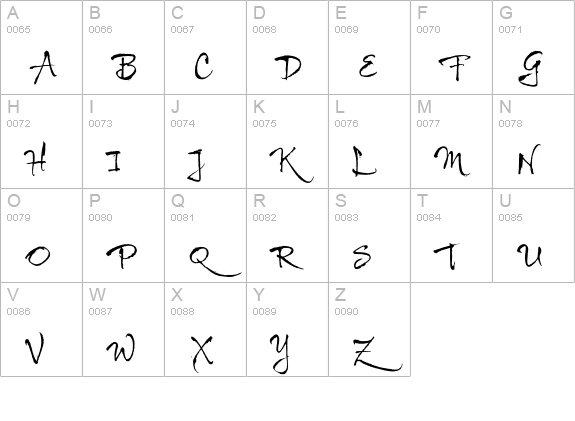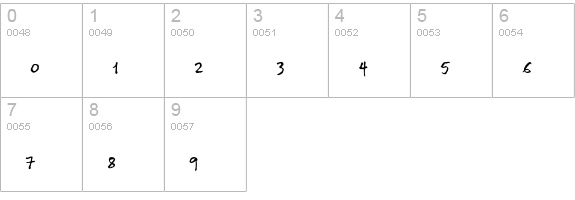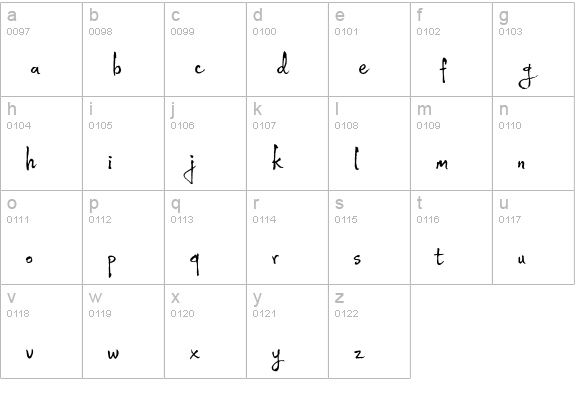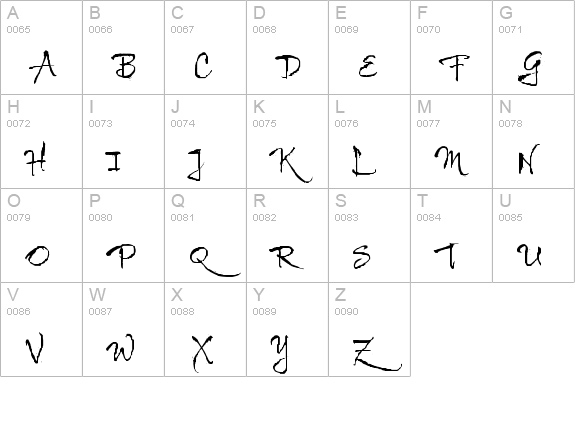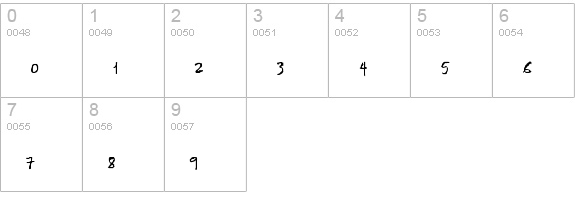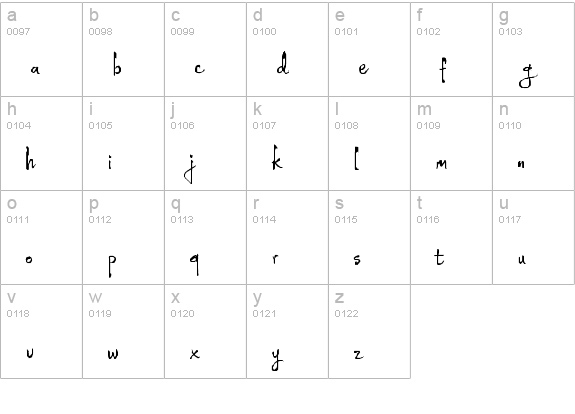
Introducing Wild Pen OT font, a charming and expressive typeface that captures the essence of free-spirited creativity. This handwritten script font features elegant curves and distinctive letterforms that bring a sense of playfulness to any design project. Perfect for adding a personal touch to invitations, greeting cards, logos, and more, Wild Pen OT font exudes a sense of whimsy and authenticity. And the best part? Wild Pen OT font is freely available to download at FontsMarket.com. Embrace the untamed beauty of this unique typeface and unleash your creativity with Wild Pen OT font today.